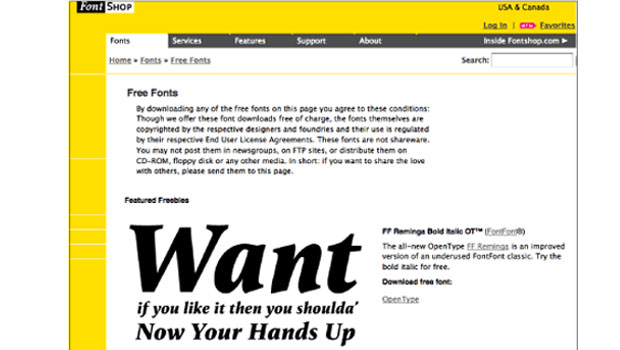
TypeTalk: Are Free Fonts Worth the Price?
Q. What do you think of using free fonts for professional design jobs?
A. You get what you pay for. That said, there are some very good free fonts if you sort the wheat for the chaff.
Free fonts fall into three categories:
1. Fonts from type-design hobbyists
2. Pirated fonts
3. Fonts released by foundries or individual pro type designers
Hobbyist type designers, who create the first category, often don’t have the same training or experience as professional type designers. Therefore, free fonts from hobbyists may lack consistent letterforms and proper spacing and kerning. Even if you like the designs, use these faces at your own risk.
The second category consists of fonts have been stolen from other type designers and/or foundries. In some cases, the digital data is rearranged a bit, the design of a few characters changed ever so slightly, and the typeface name either altered slightly to sound like the original (such as Garabonde instead of Garamond) or totally changed. Because this kind of pirating denies the original designer the royalties they deserve, it is an extremely unethical practice. Other pirated fonts are stolen and reoffered for sale with no change to the font. No only is this practice unethical, it’s outright illegal.
Three’s a charm, and so it is with the third category of free fonts. It most often consists of legitimate, high-quality fonts from major foundries, usually offered when you open an account or sign up (no purchase required) with that foundry. Free fonts are also occasionally given as a bonus when you make a purchase.
myfonts.com has a boatload of well-designed free fonts. Scroll down past the first few with ‘free’ in their name to get to the truly free fonts.
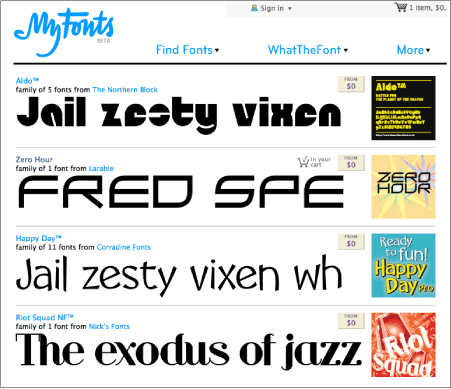
FontShop also offers the occasional free font.